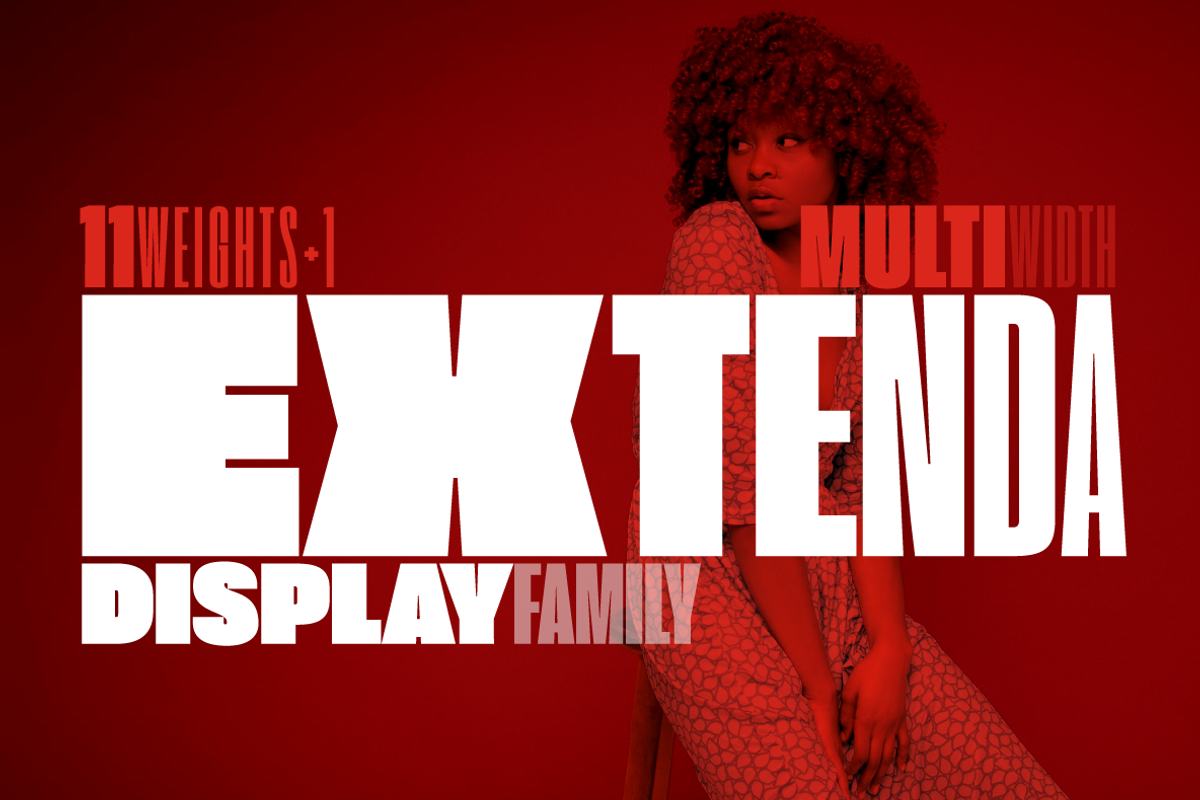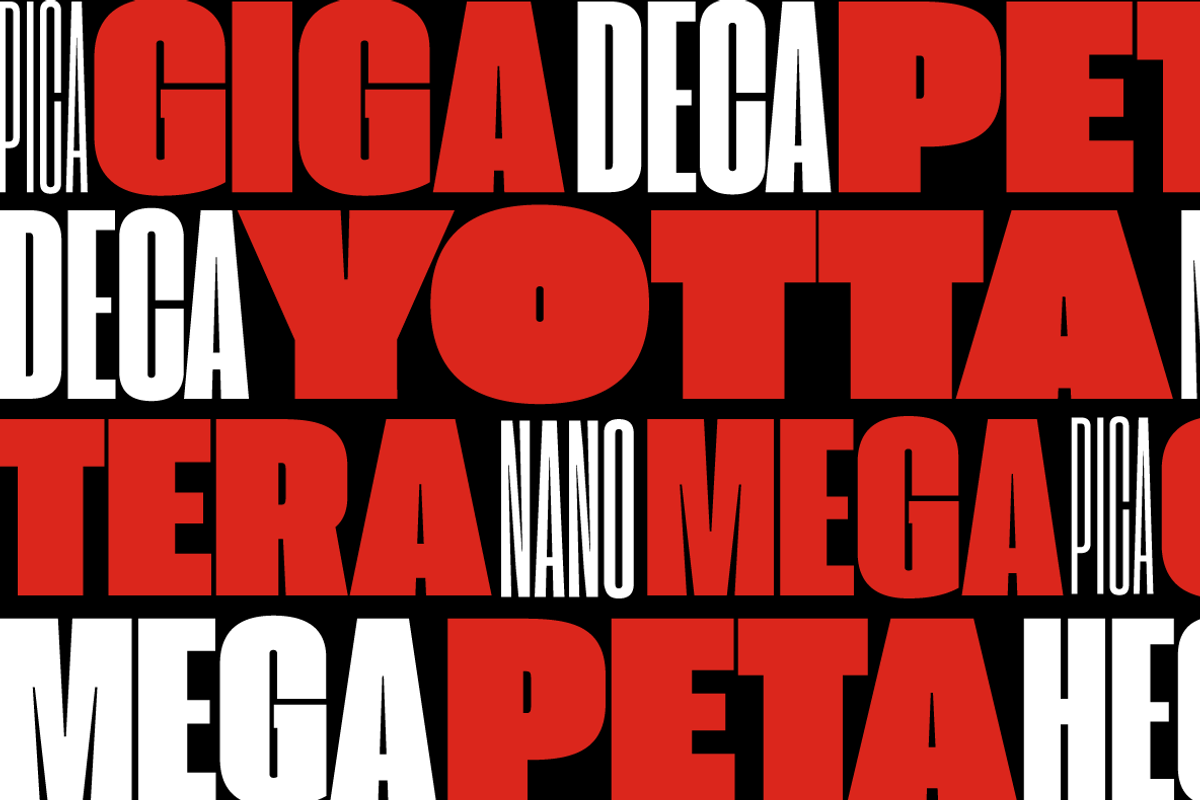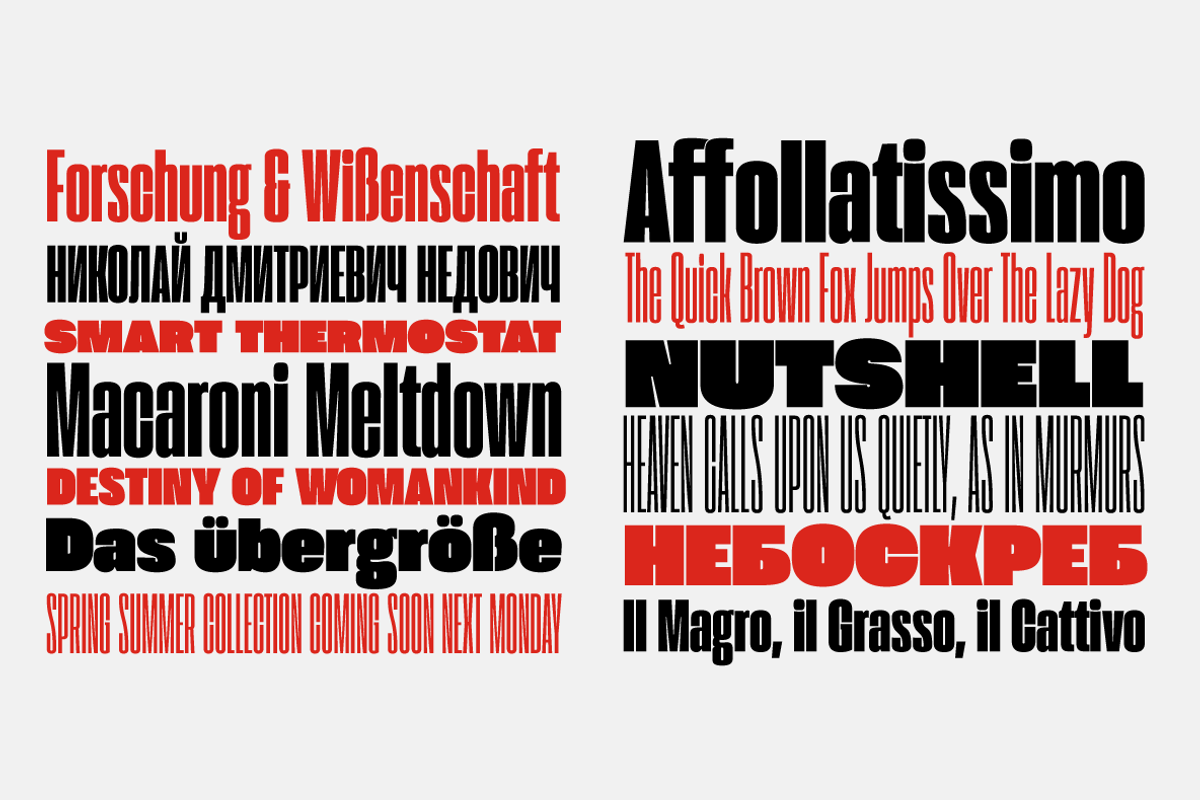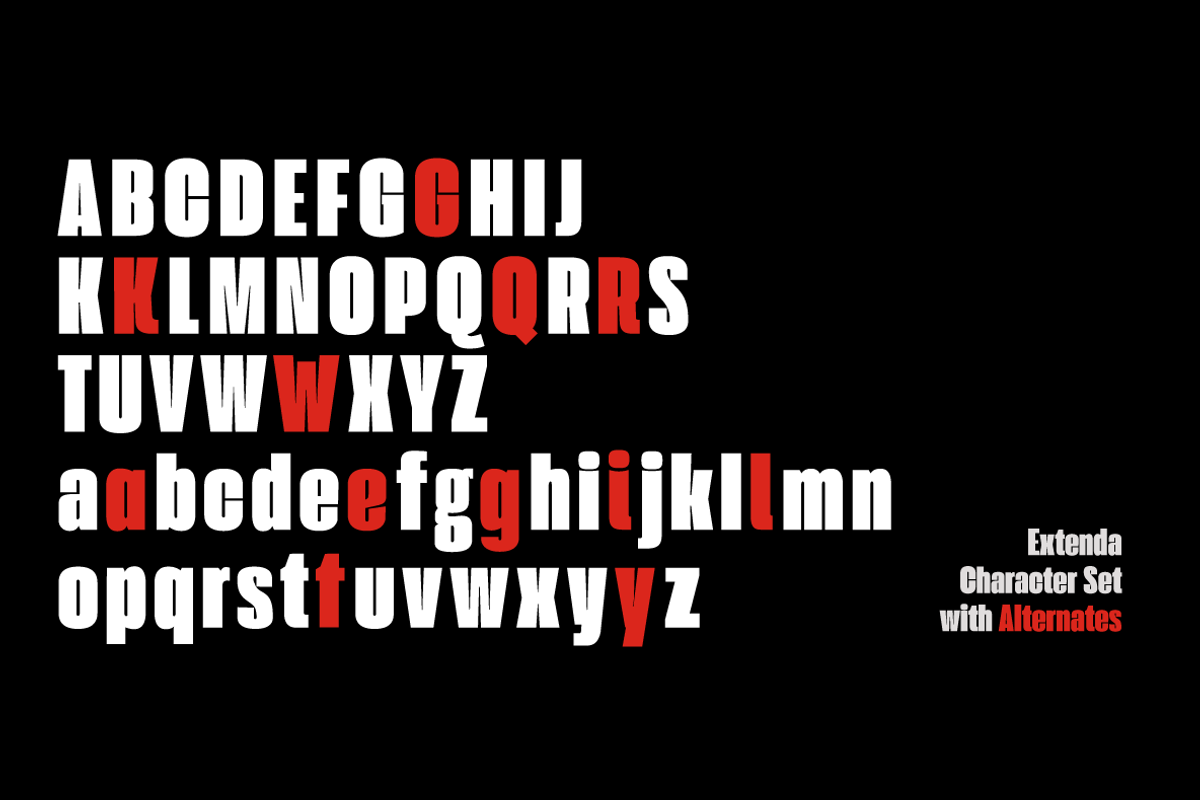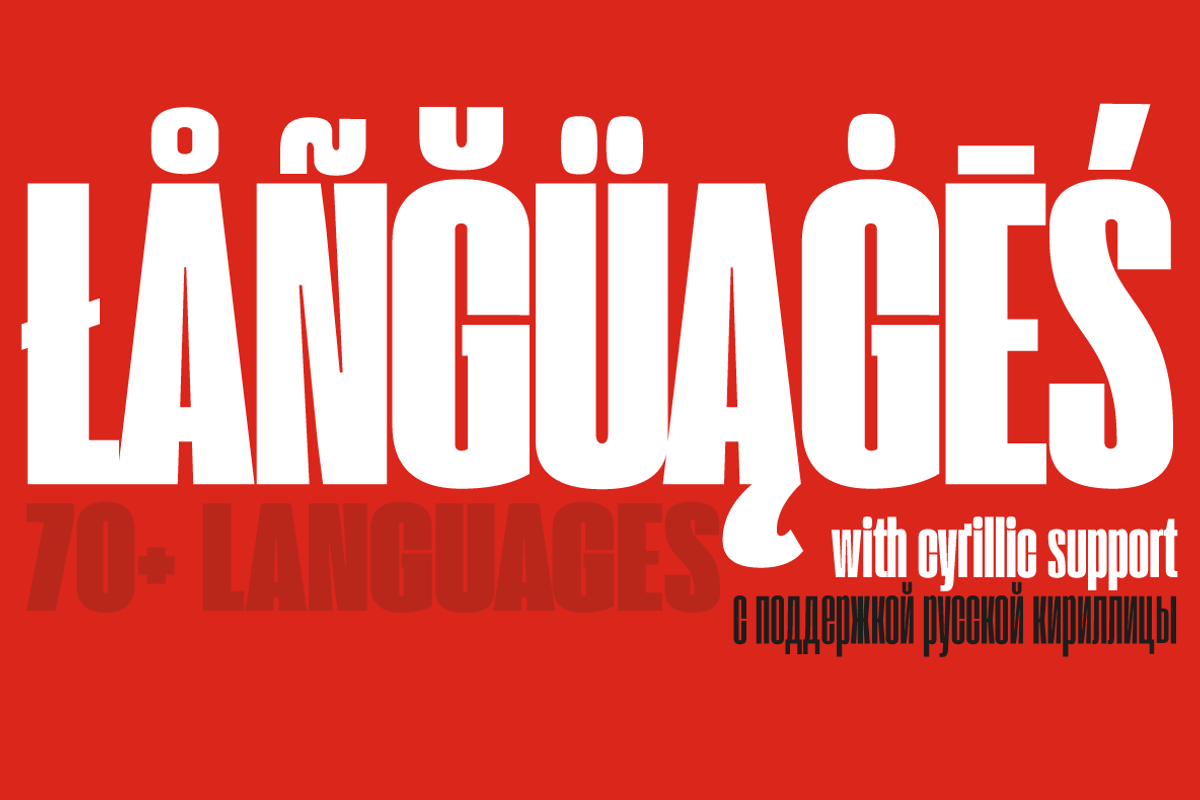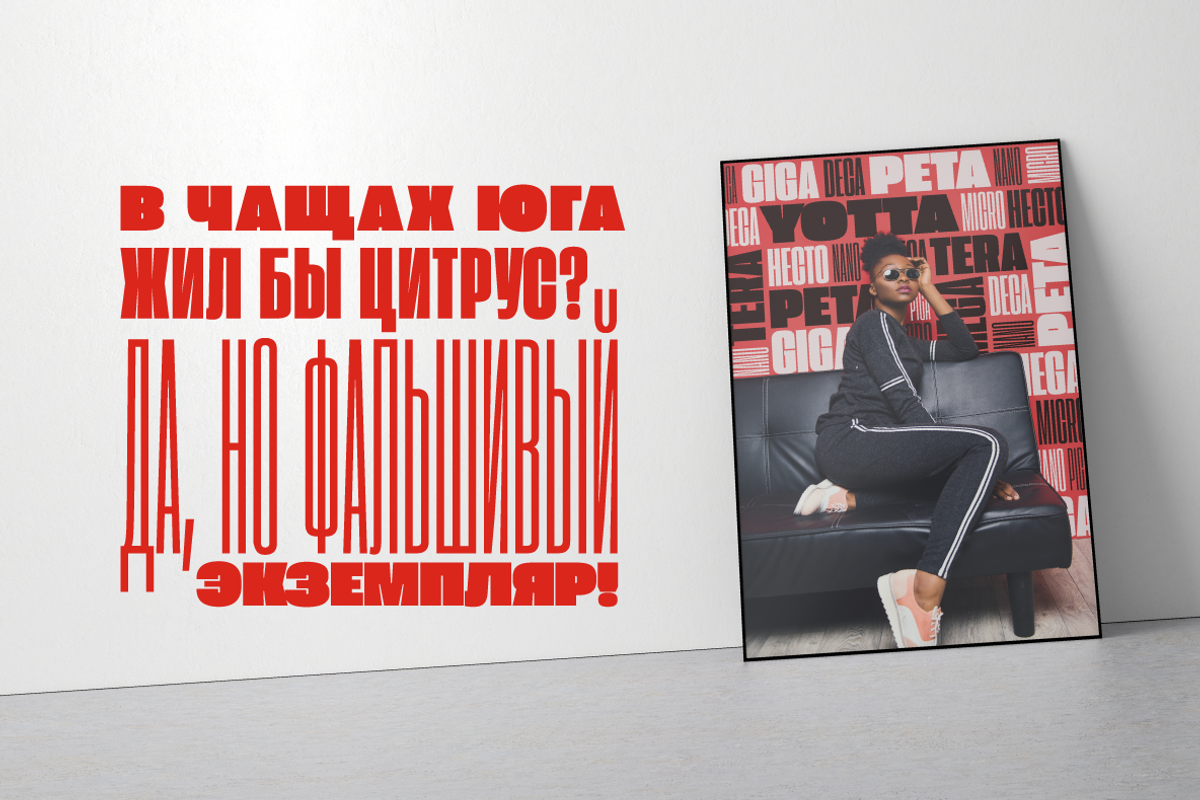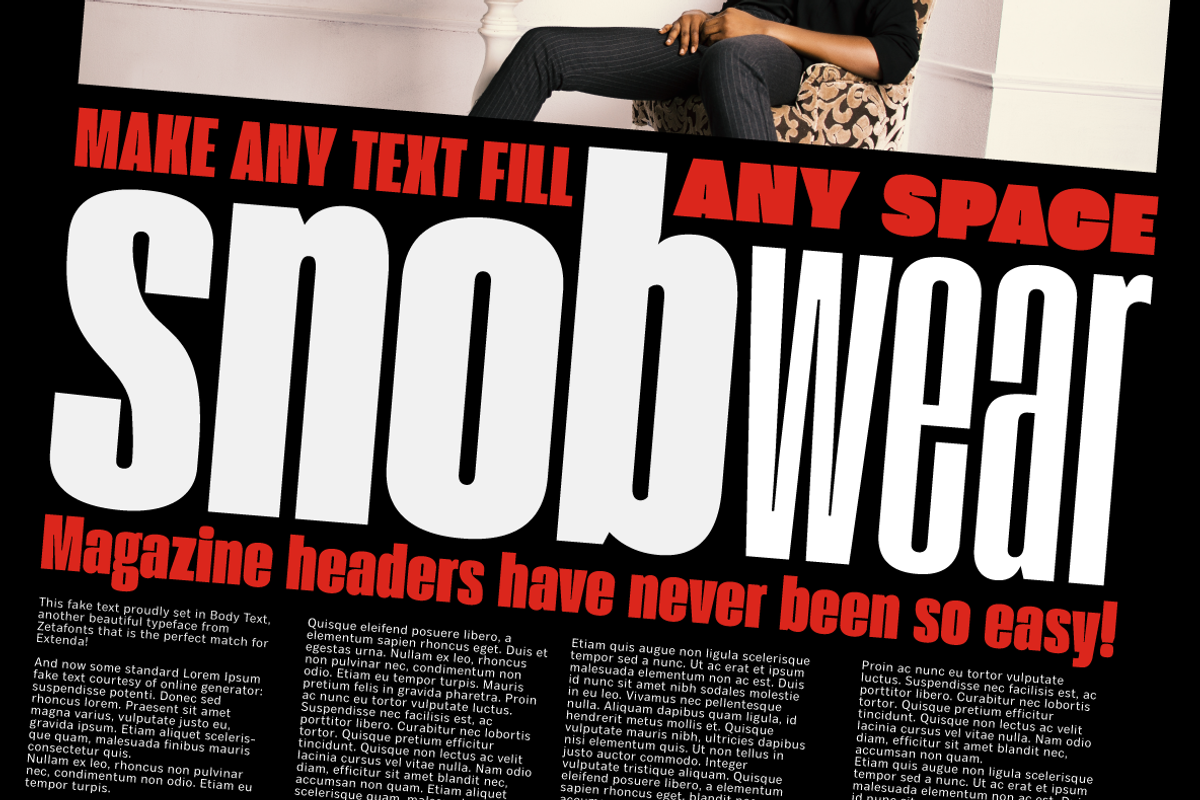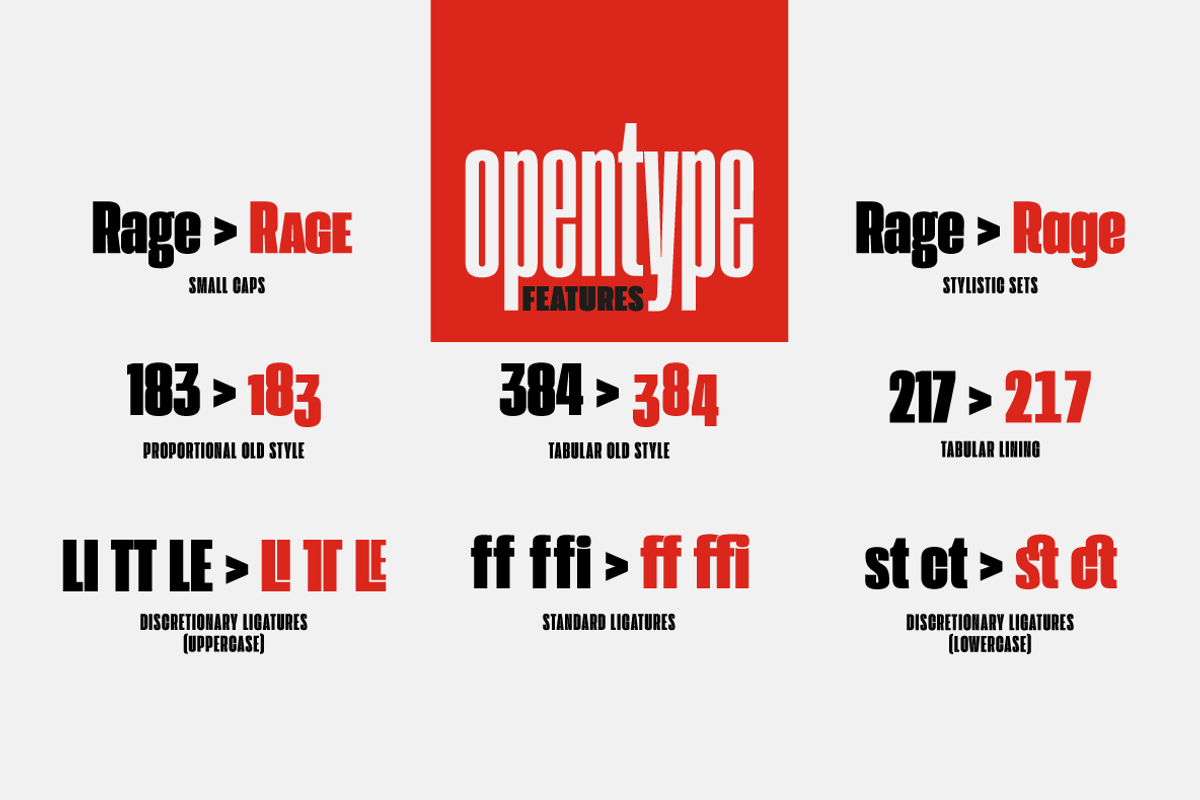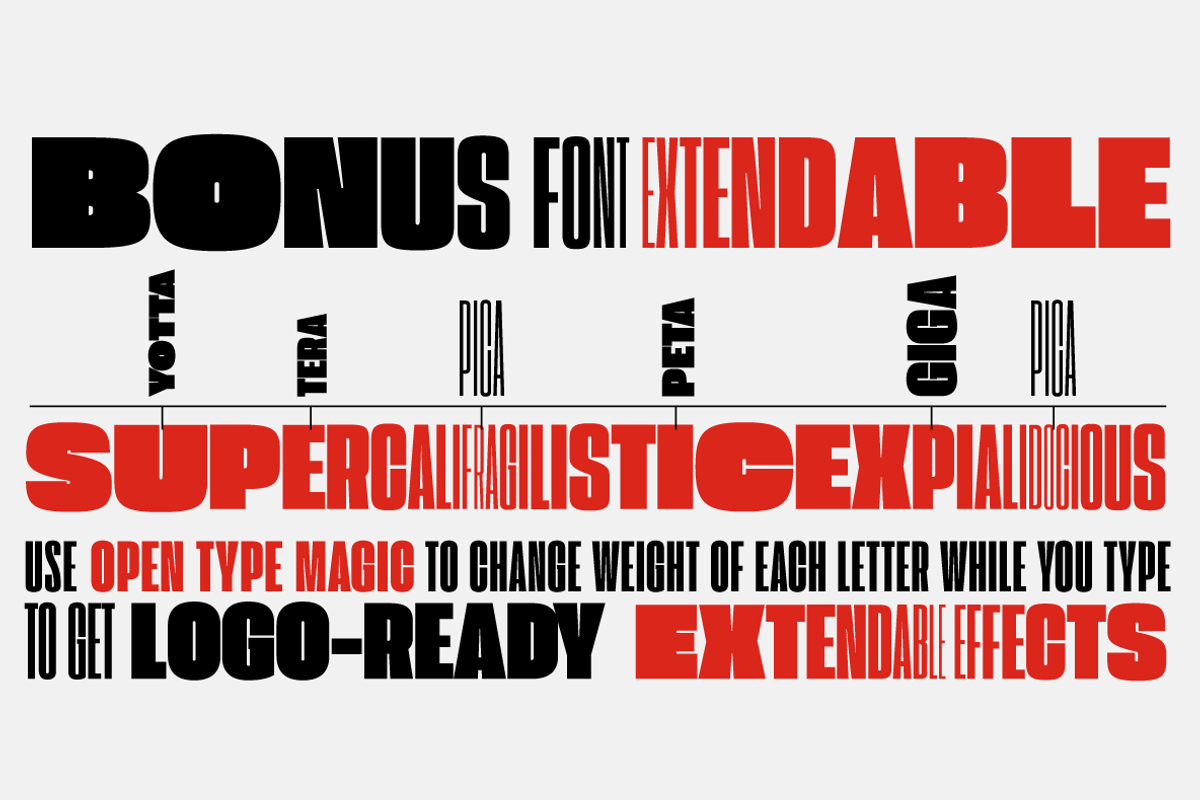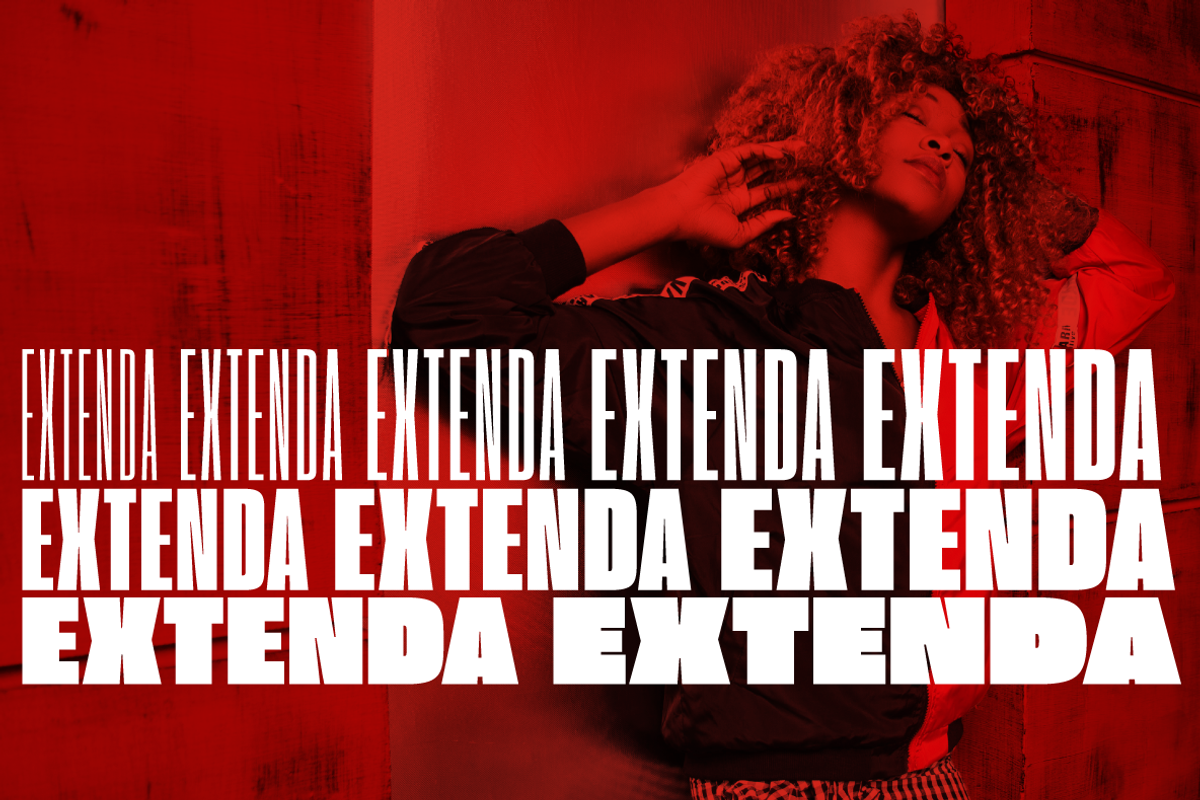
Extenda - 12 fonts
Extenda is a variable width sans serif type family designed by Francesco Canovaro with Andrea Tartarelli and Cosimo Lorenzo Pancini.It been created to provide designers with a powerful but flexible tool to create strong headlines, logos, and display text with tight spacing and maximum space coverage. Rather than providing a family of weights, it gives you a fine-grained range of widths to choose from, allowing maximum control in display editorial uses, and proportional size variation in logo design, keeping consistent appearance and readability.
From the vertical, ultra-condensed and thin Pica, Nano and Micro weights to the wide and ultra-bold Peta, Exa and Yotta weights, all Extenda fonts include an extended character set covering Latin languages as well as ones using Cyrillic and Greek for a coverage of 200+ languages. Full Open Type features are included, from small caps to stylistic alternates, positional number forms and discretionary & standard ligatures.
The 11-weights family is complemented by the Extendable special weight, that uses Open Type scripts to create a dynamically scaling typeface where each letter becomes automatically tighter or wider than the previous one.